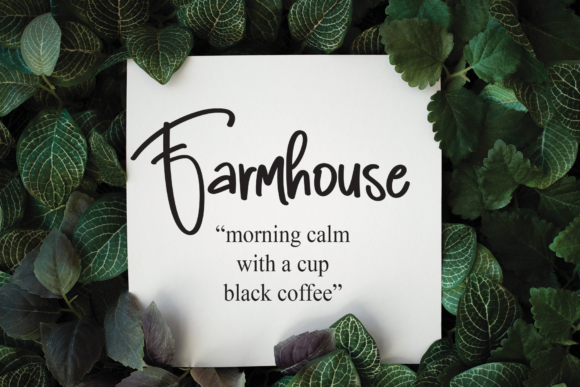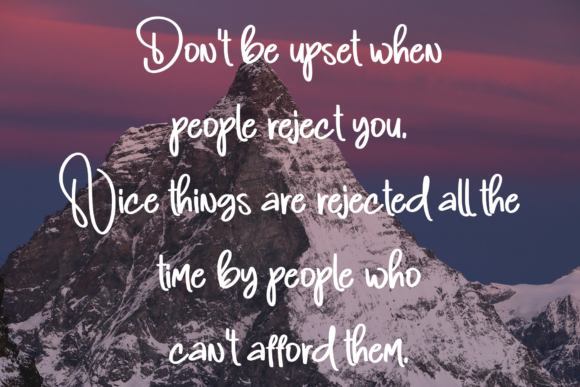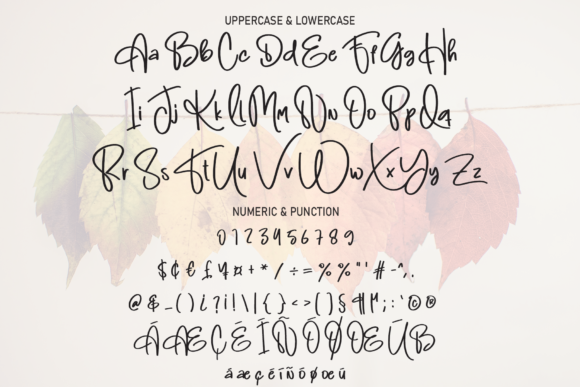
When a Font Tells a Story
Do you remember that moment when you first saw a beautiful hand-drawn logo and instantly knew it was the perfect fit for your brand? For designers, this moment is what makes all the hard work worth it. It’s a feeling that comes from creating something truly unique and special – and that’s exactly what the Holiday Moment Font aims to evoke.
With its classic, simple, and free-spirited nature, the Holiday Moment Font is perfect for a wide range of creative projects. From logotypes to headlines, and from corporate identity to apparel industry, this font is designed to add a touch of personality and warmth to any design. Whether you’re working on a movie, game, or magazine, the Holiday Moment Font is sure to bring a sense of joy and festivity to your project.
Holiday Moment Font Key Features
- Font Family: Holiday Moment Font is a unique, hand-drawn font designed to evoke a sense of nostalgia and warmth.
- Unique Characteristics: Features hand-drawn elements, subtle texture, and imperfections that give it a personal, human touch.
- Usage: Suitable for a wide range of applications, including invitations, greeting cards, social media graphics, and more.
Review: Holiday Moment Font
I recently had the chance to work with the Holiday Moment Font, and I must say, it’s a delightful addition to any project. ✨ The font’s elegant and whimsical design makes it perfect for creating festive and joyful content.
- The font’s intricate details and flourishes add a touch of magic to any text.
- The characters are well-designed and legible, making it easy to read.
- The font’s versatility makes it suitable for a wide range of projects, from invitations to social media graphics.
However, there are some limitations to keep in mind:
- The font’s size can be quite large, which may not be ideal for smaller projects or text-heavy content.
- The font may not be as suitable for more serious or formal projects, as it’s primarily designed for festive and celebratory content.
Overall, I’m impressed with the Holiday Moment Font’s unique charm and versatility. While it may not be the best fit for every project, it’s a great choice for creating festive and joyful content. If you’re looking for a font that will add a touch of magic to your project, the Holiday Moment Font is definitely worth considering.
The Holiday Moment Font is perfect for creating festive and holiday-themed designs. Use it for:
- Holiday cards and invitations
- Seasonal social media posts
- Christmas and New Year’s Eve graphics
- Winter and snow-themed designs
Remember to pair the Holiday Moment Font with other festive elements, such as snowflakes, holly, or Christmas trees, to create a cohesive and eye-catching design.